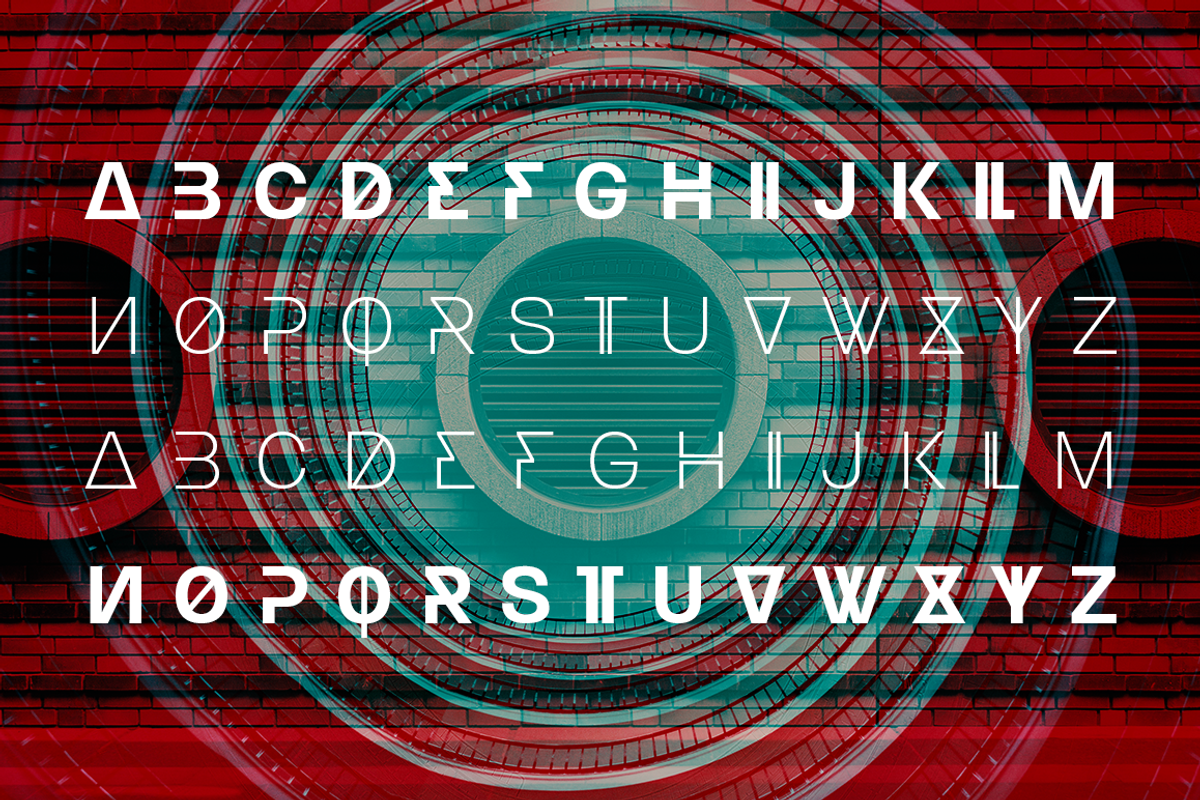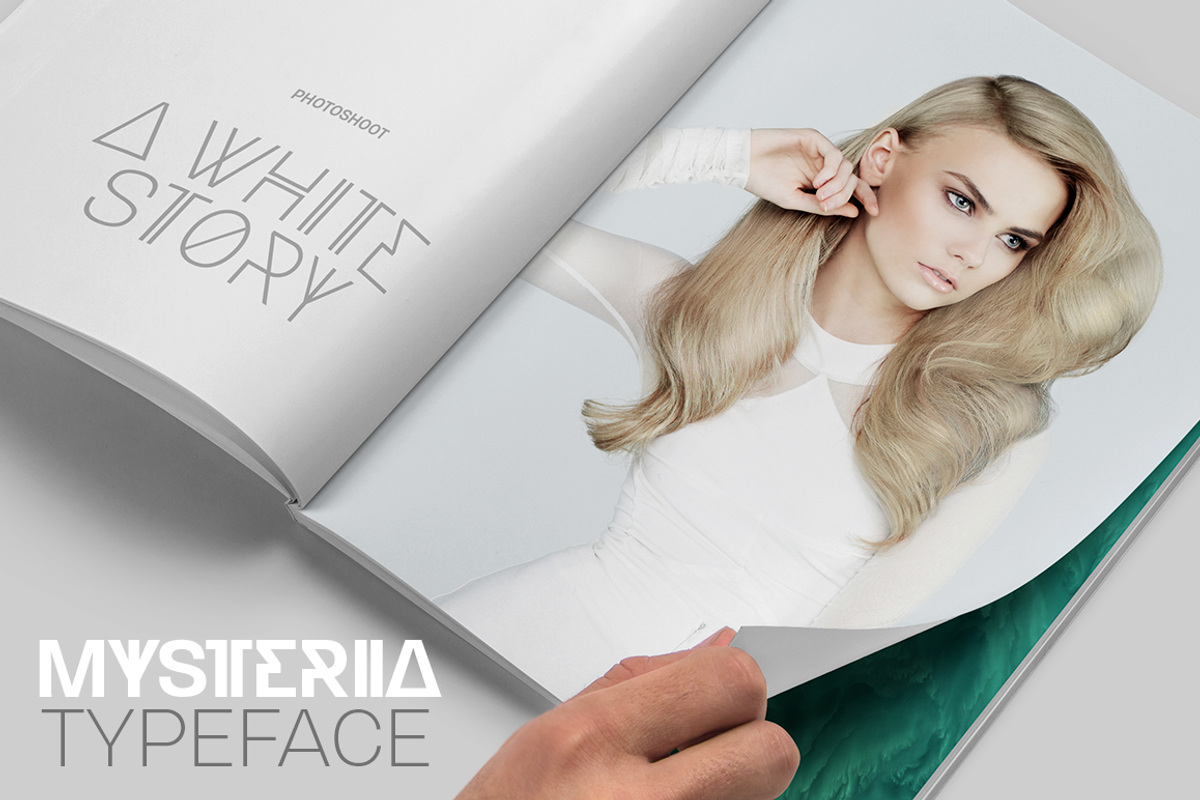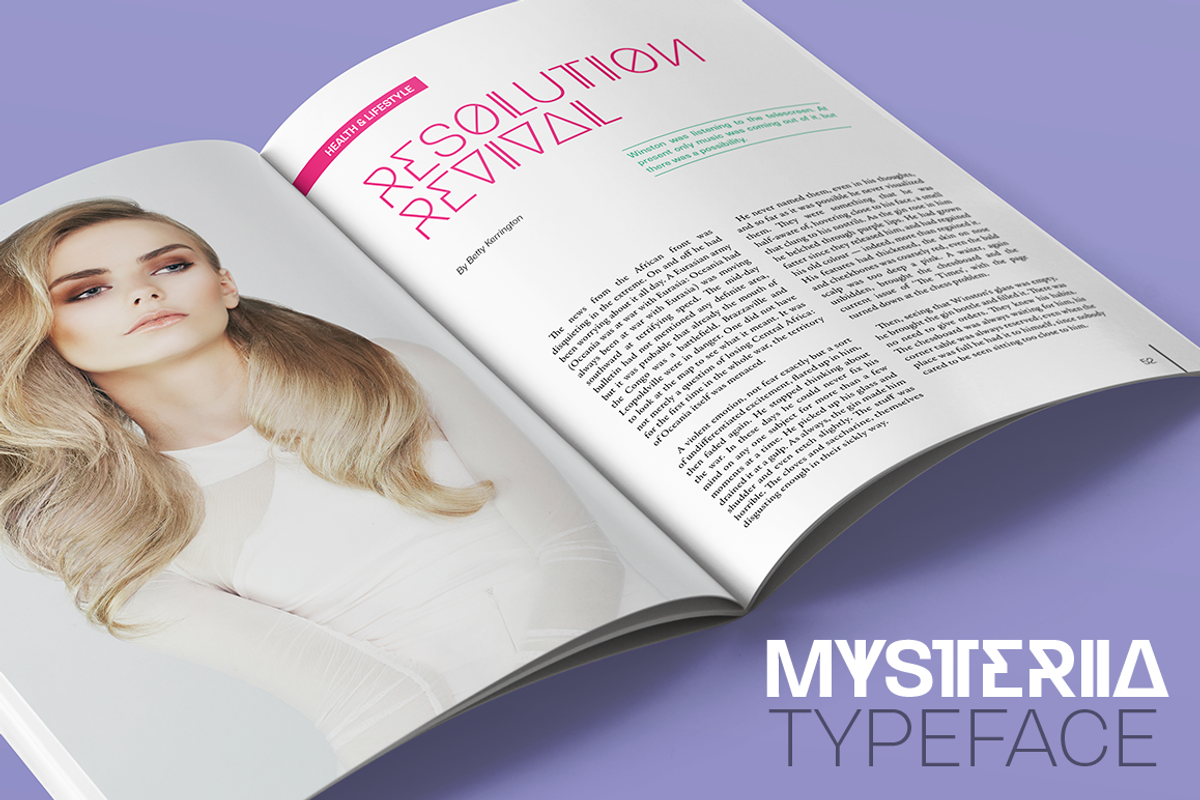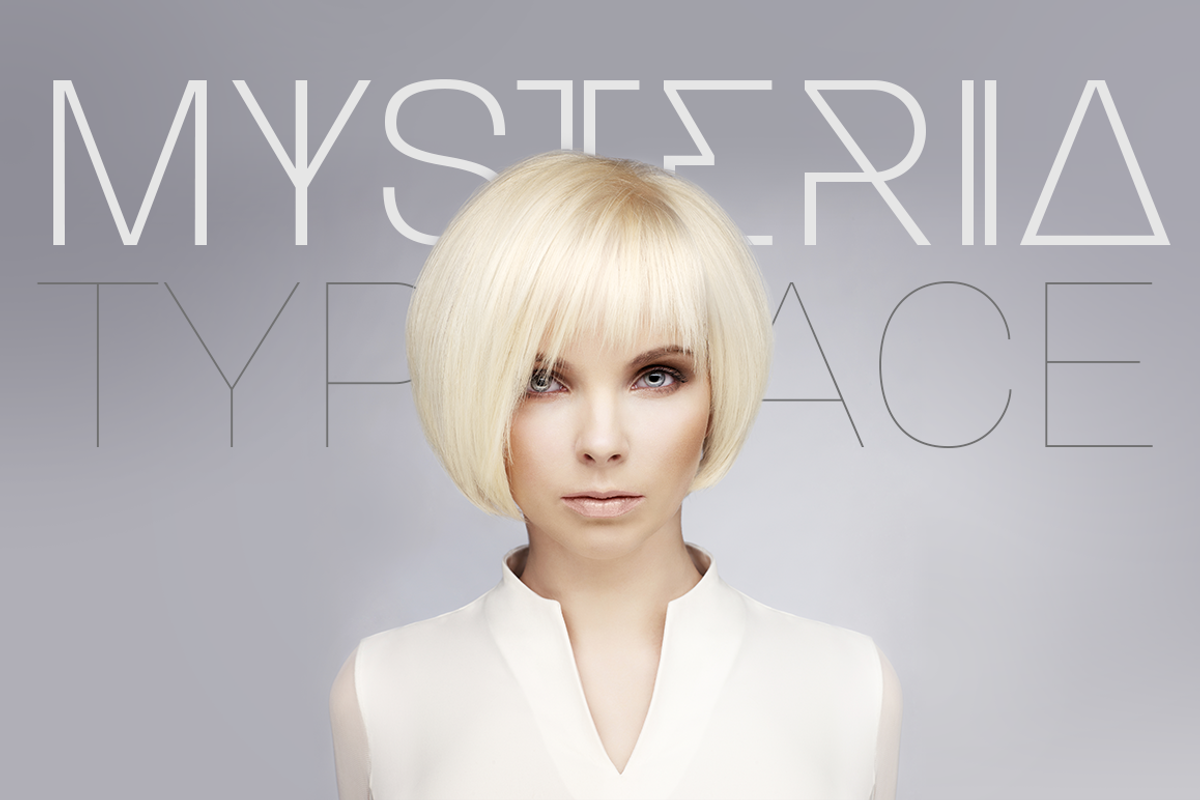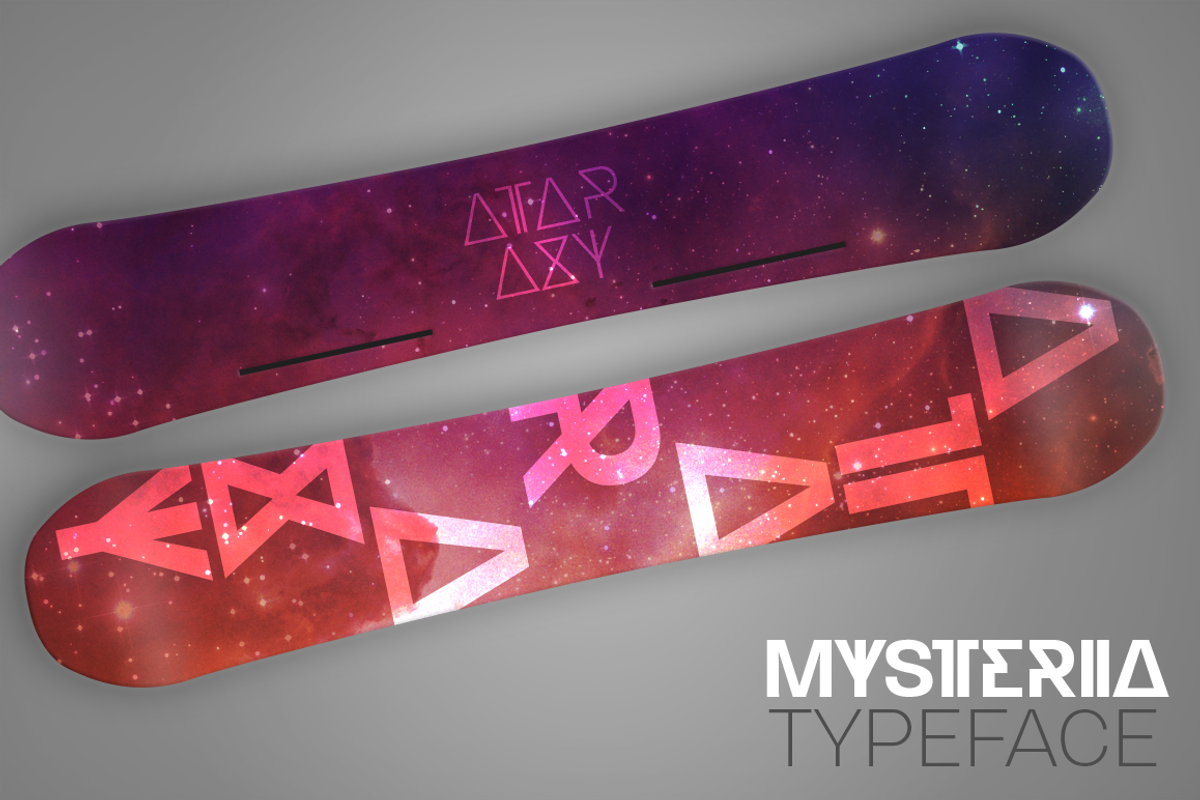
Mysteria Font Family
Mysteria Font Family by Juraj Chrastina is a font selected for branding, posters, packaging, typography.
Mysteria Font Family by Juraj Chrastina fits naturally into Branding, posters, packaging, typography.